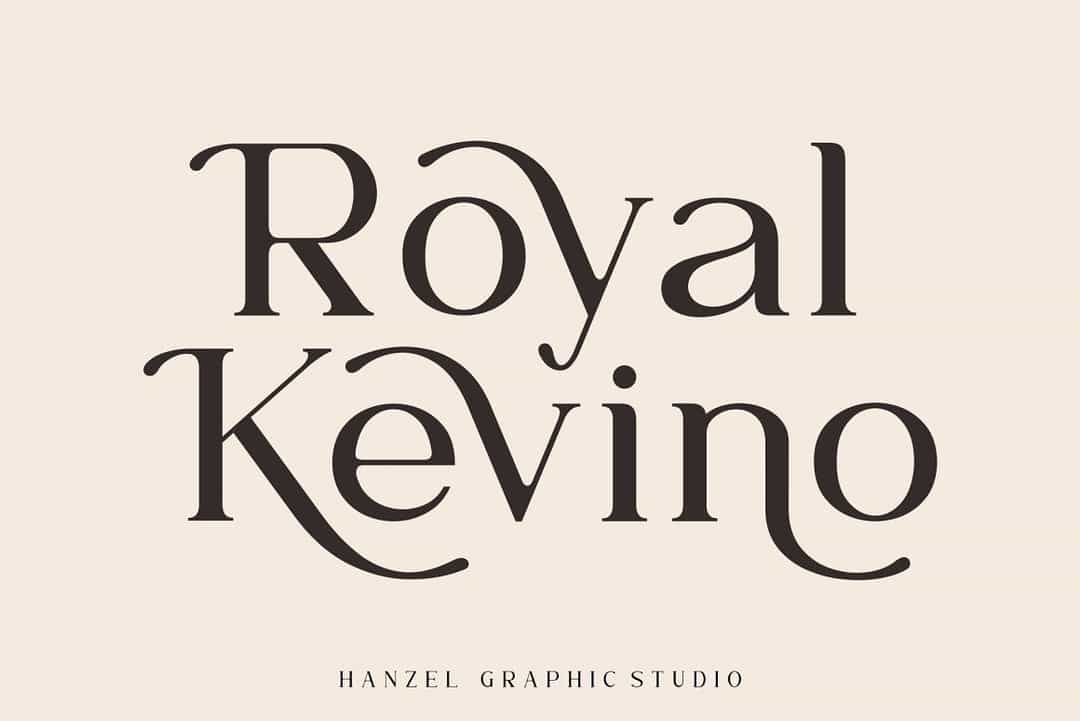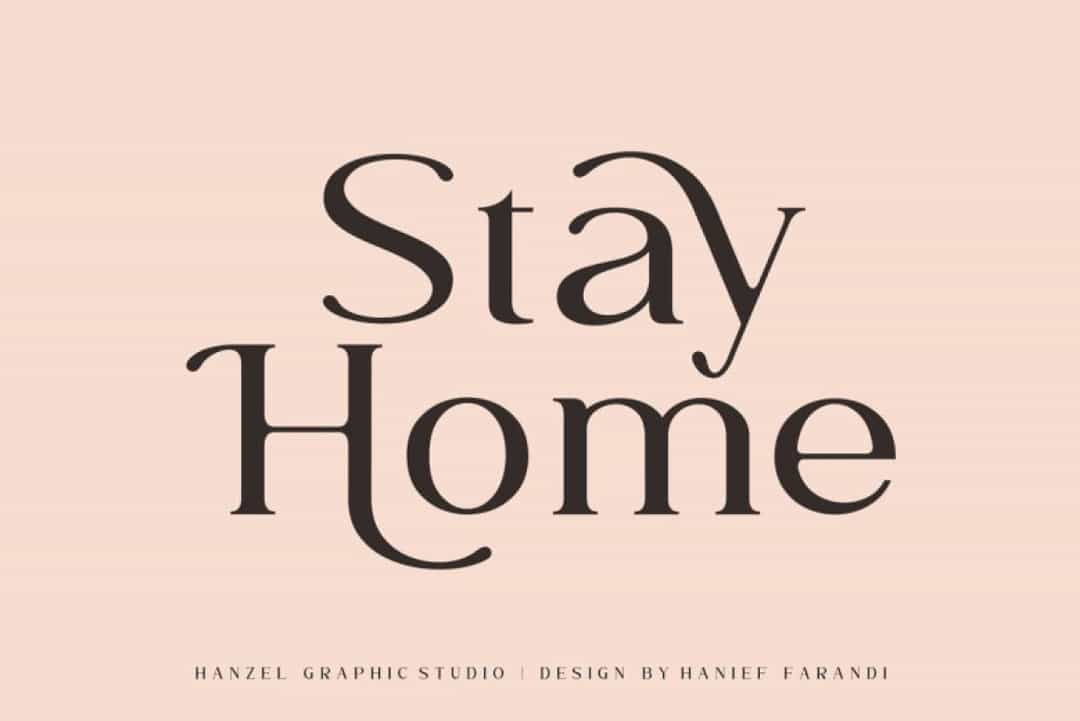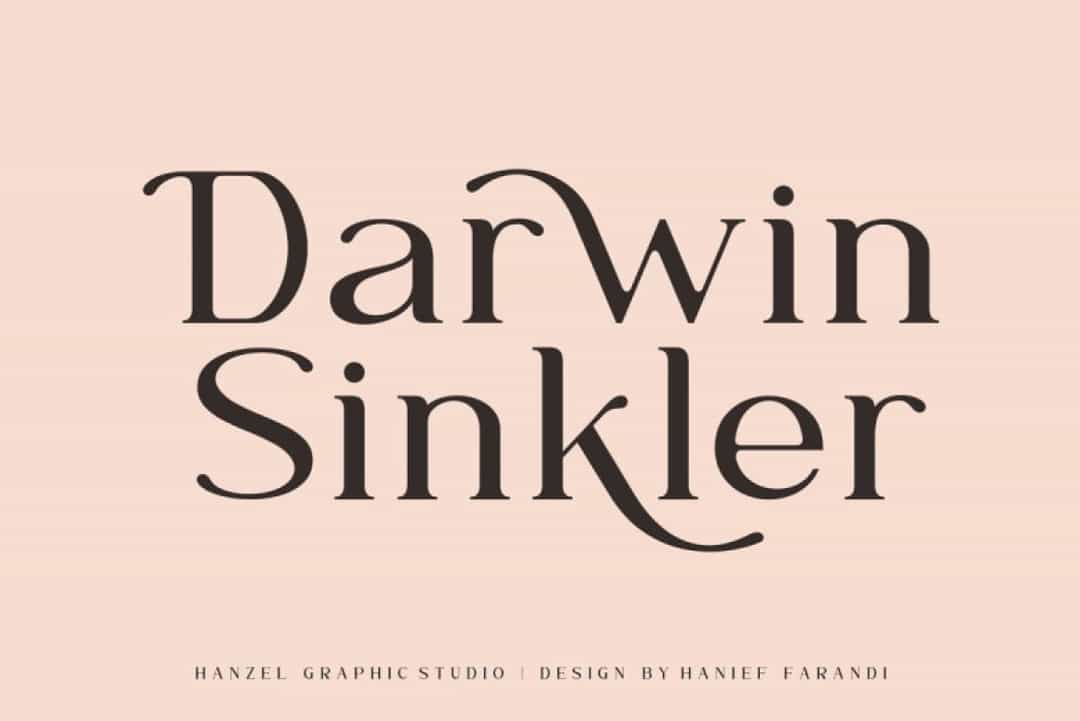
Royal Kevino is an elegant serif font. Featuring clean lettering that looks beautiful in both formal and casual settings, Royal Kevino lends itself beautifully to logos, names and any type of design project.